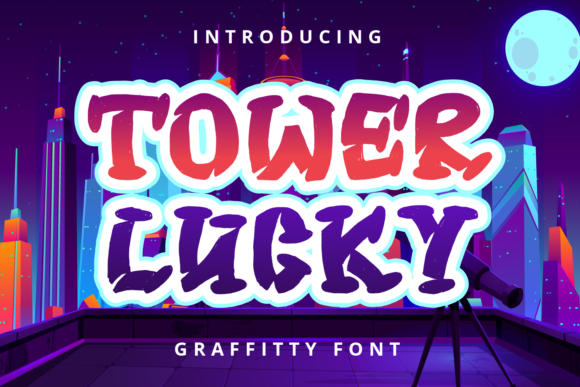
Tower Lucky Font
**Introducing Tower Lucky: The Font That Will Revolutionize Your Digital Presence**
In the realm of fonts, where aesthetics and functionality intertwine, Tower Lucky emerges as a visionary creation that empowers you to elevate your designs to unparalleled heights. This captivating display font embodies the essence of modernism, effortlessly blending the allure of graffiti with the precision of digital typography.
With Tower Lucky gracing your designs, prepare to witness a transformative shift in your posters, flyers, and print materials. Its unconventional charm effortlessly draws the eye, captivating audiences with its raw energy and undeniable style. Unleash your creativity as you delve into the boundless possibilities that this font presents.
**Unleash Your Inner Artist with Tower Lucky**
Beyond its captivating aesthetics, Tower Lucky possesses a versatility that empowers you to transcend creative boundaries. Whether you seek to craft a standout resume that commands attention or design marketing materials that ignite a spark, this font will seamlessly adapt to your vision.
Imagine a resume adorned with the bold strokes of Tower Lucky, instantly projecting an image of confidence and forward-thinking. Its graffiti-inspired charm will set you apart from the mundane, showcasing your unique style and unwavering determination.
**Elevate Your Brand with Effortless Style**
In today's competitive digital landscape, your brand's visual identity holds immense power. Tower Lucky empowers you to forge a distinctive brand aesthetic that resonates with your target audience. Its unique character will infuse your marketing materials with an unforgettable charm, ensuring that your message cuts through the noise and leaves a lasting impression.
**Join the Creative Revolution with Tower Lucky**
Step into a world where creativity knows no bounds. With Tower Lucky at your disposal, you possess the key to unlocking a new dimension of design possibilities. Let its bold strokes ignite your imagination and guide you towards design masterpieces that will redefine your creative journey.